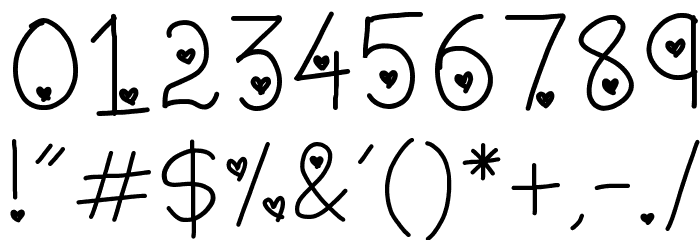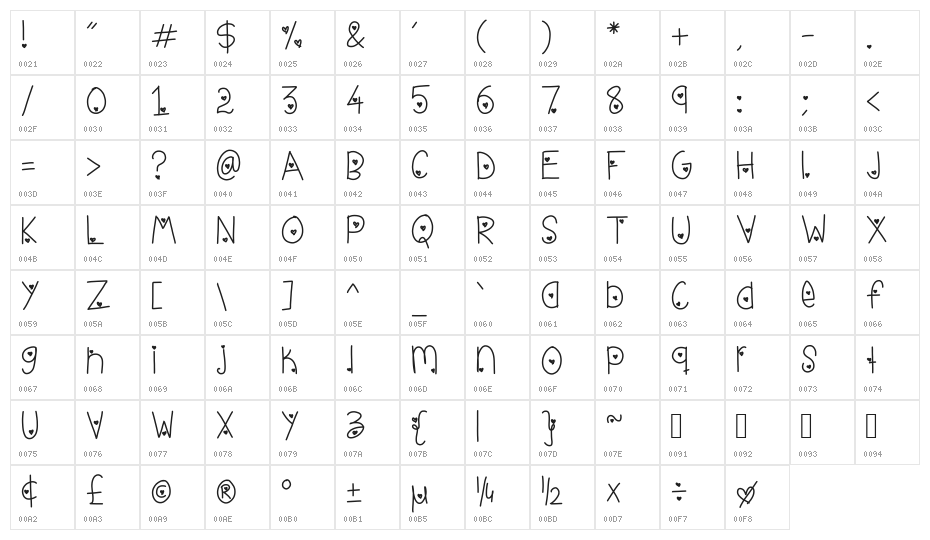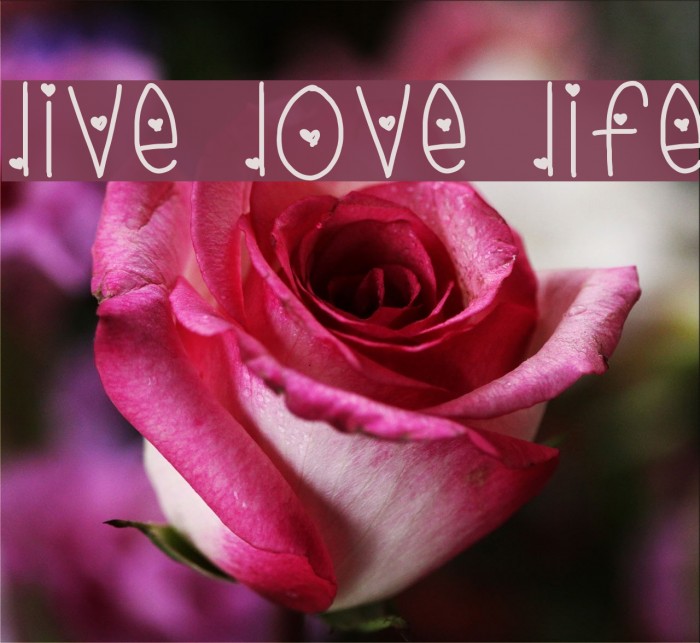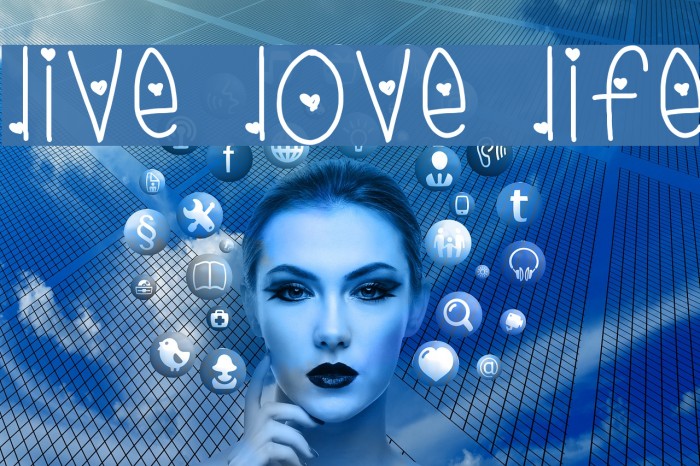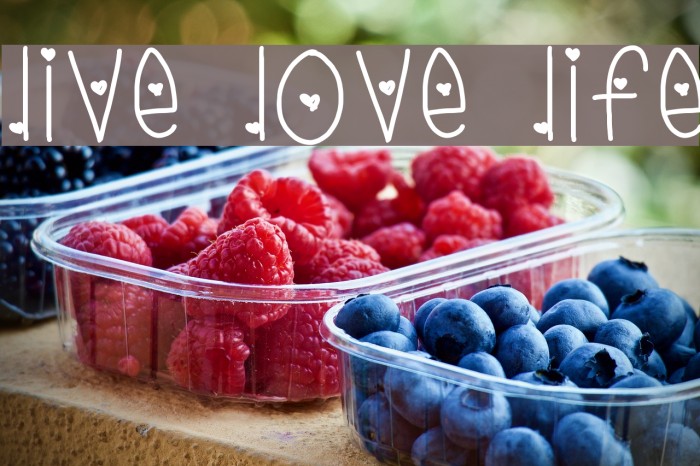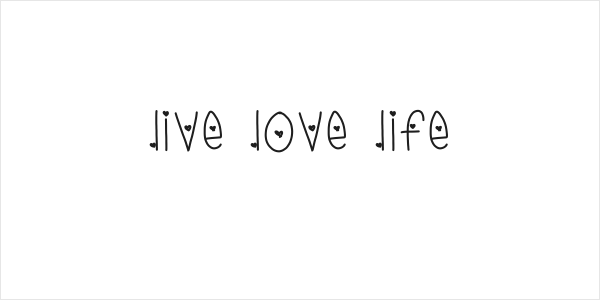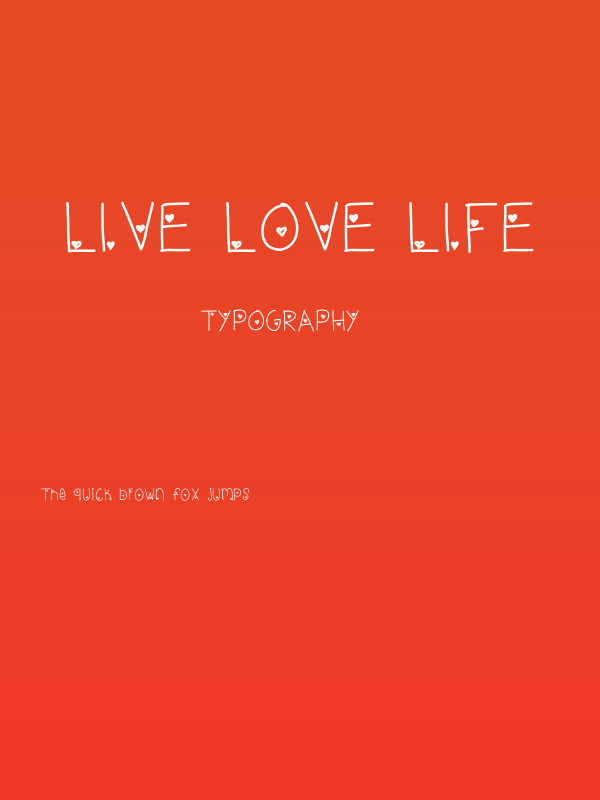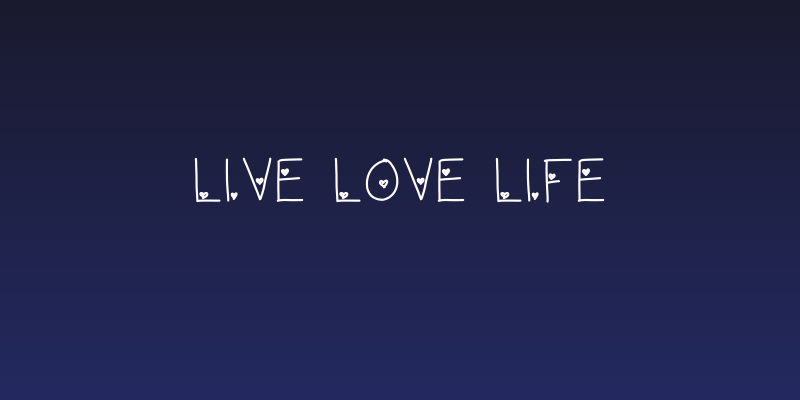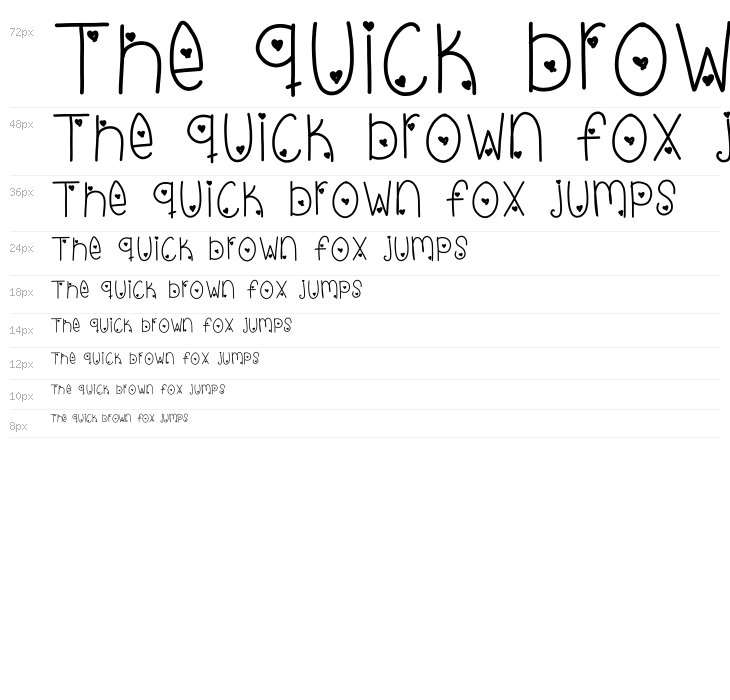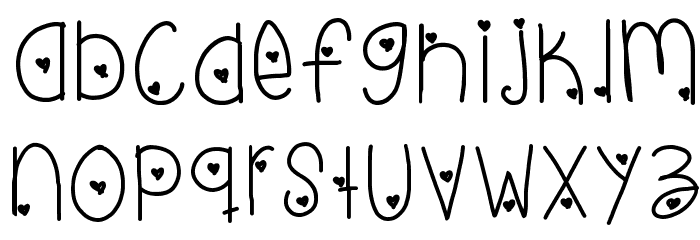
live love life Font
live love life Description
This playful and whimsical font features heart motifs integrated into each character, giving it a charming and romantic feel. The letters are crafted with a hand-drawn aesthetic, characterized by thin strokes and a casual, informal style. The heart shapes are cleverly placed, often replacing dots or embellishing the ends of strokes, adding a unique and endearing touch. This font exudes a sense of fun and creativity, making it ideal for projects that aim to convey warmth and affection. The overall design is consistent across uppercase, lowercase, numbers, and special characters, maintaining a cohesive look throughout.
| Overall Style | Whimsical |
| Proposed Projects | Ideal for greeting cards, wedding invitations, love-themed posters, and playful branding projects. |